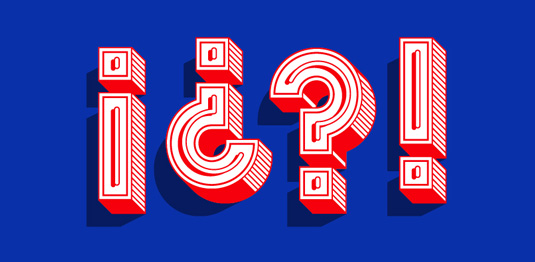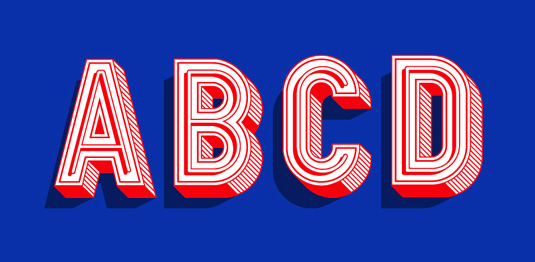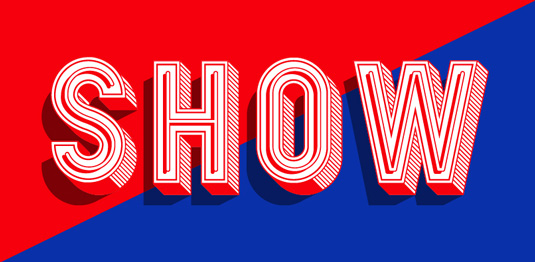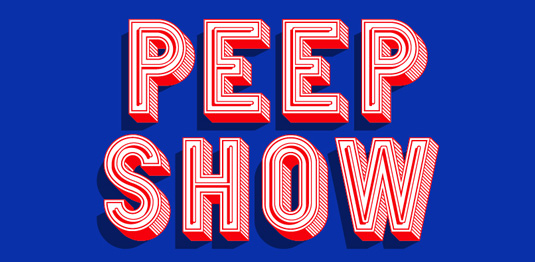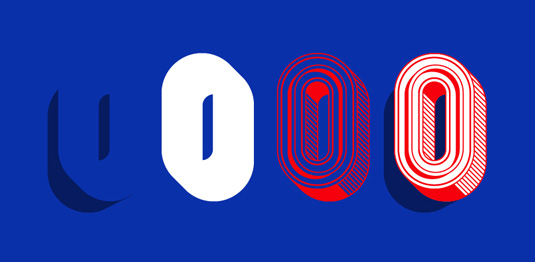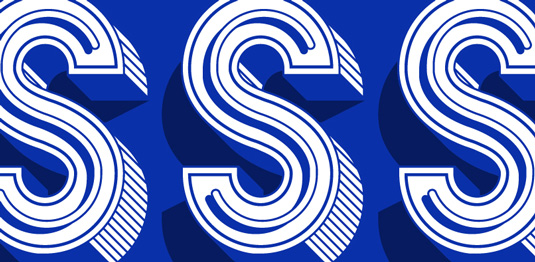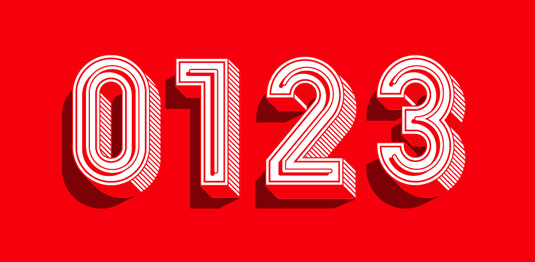
Font of the day: Peep Show
Peep Show by Vault49
Created exclusively for font shop HypeForType, Peep Show was developed by internationally award-winning design studio Vault49. "Inspired by our love for neon and diner signage, we jumped at the opportunity to make a modern day equivalent into a typeface for designers to use," the Vault49 team comments on HypeForType.
"In order to give as much flexibility as possible, Peep Show can broken down into a variety of versions depending your requirements, featuring separate fill colour, drop shadow and outlines to give you 3 fonts for the price of one. Enjoy! When purchasing Peep Show you will also receive a complimentary illustrator file containing all characters, perfect for large layout work!"